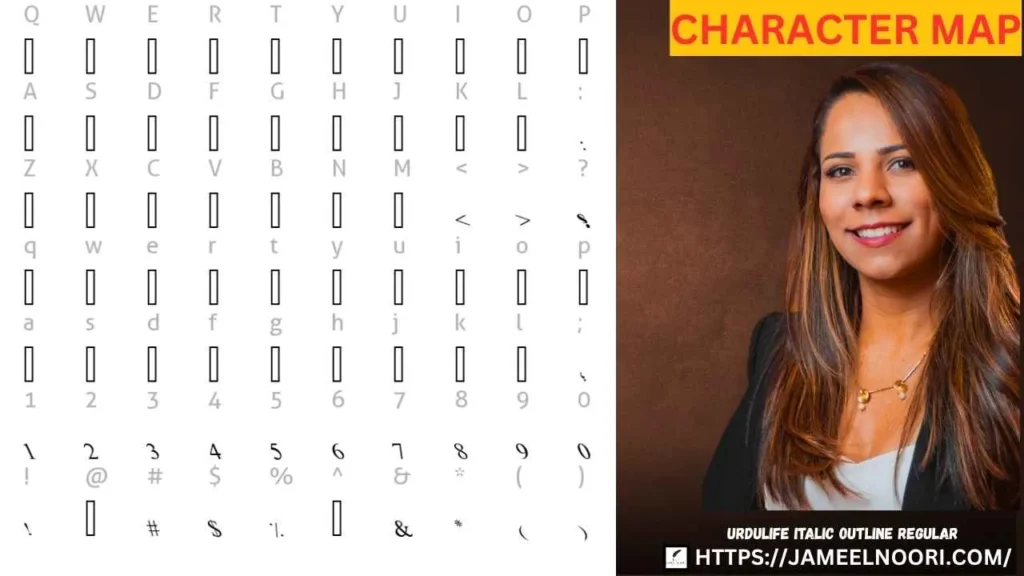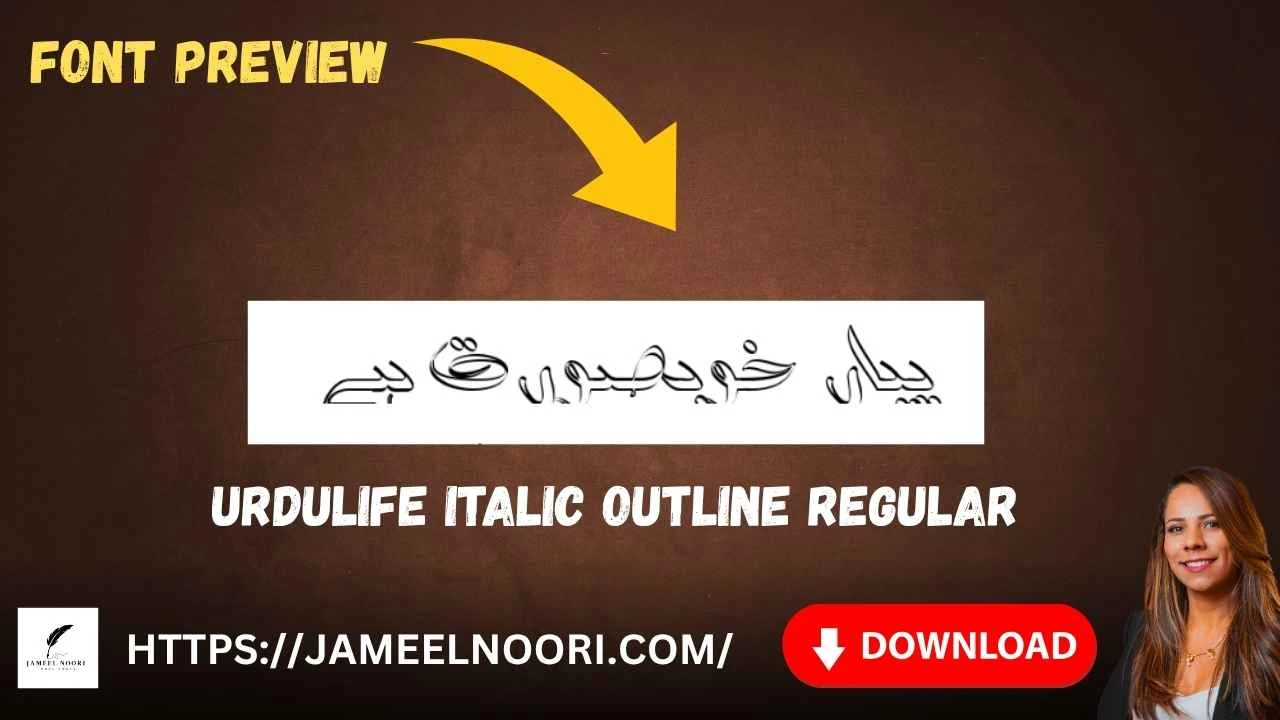
If you’re looking for a modern and stylish Urdu font for your digital or print designs, the Urdulife Italic Outline Regular Font is the perfect choice in 2025. This beautiful TrueType font combines the artistic elegance of Urdu calligraphy with a sleek italic and outlined style — making it ideal for creative projects, social media posts, and branding.
Why Choose Urdulife Italic Outline Regular Font?
1. Unique Outline & Italic Style
Unlike typical Urdu fonts, this one offers a clean outline look with a slight italic tilt, giving your text a trendy and elegant effect. Perfect for modern Urdu typography lovers.
2. Professional Urdu Design
This font preserves the Nastaliq influence of Urdu writing while adding a stylish twist suitable for headings, banners, and logo text.
5. Ideal for Urdu Designers & Content Creators
From YouTube thumbnails to magazine covers, this font adds sophistication and readability that makes your Urdu text stand out.
Where to Use Urdulife Italic Outline Regular Font
- Logo Design – Give your Urdu brand a stylish and professional identity.
- Social Media Posts – Perfect for quote images and Urdu captions.
- Headlines & Titles – Adds elegance to Urdu news or blog articles.
- Flyers & Posters – Enhance promotional content with modern typography.
- Video Thumbnails – Great for creative and eye-catching Urdu titles.
- Digital Art – Use it to add a decorative Urdu text element.
Design Advantages of Urdulife Italic Outline Regular Font
- Offers a modern Urdu calligraphy experience with outline detailing.
- Works perfectly with light or gradient backgrounds.
- Maintains sharp edges and smooth alignment in high-resolution graphics.
- Suitable for both digital and print projects.
- Easily pairs with bold or shadowed English fonts for bilingual designs.
Why Designers Love It
Designers appreciate Urdulife Italic Outline Regular Font because it merges traditional Urdu style with modern aesthetics. The italic touch adds motion and emotion, while the outline design enhances creativity.
Whether you’re designing modern Urdu poetry images, branding materials, or digital art, this font delivers versatility and visual appeal.
The Urdulife Italic Outline Regular Font is a perfect blend of tradition and innovation. It captures the beauty of Urdu calligraphy with a futuristic outline design, making it an ideal font for modern creators.